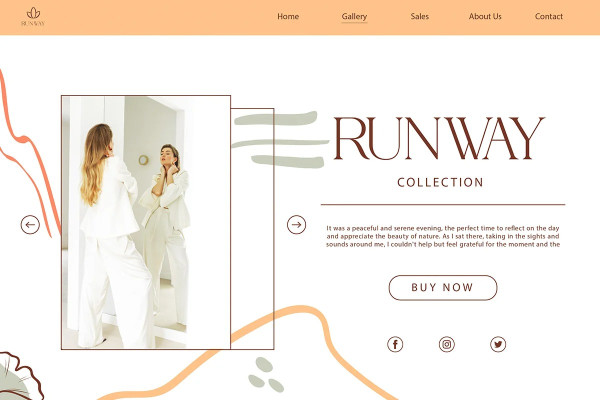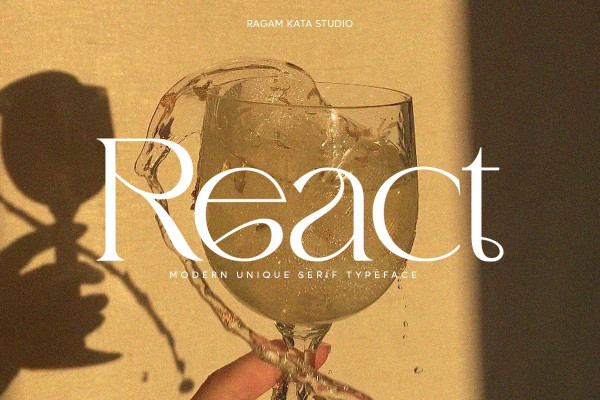
React Font
React Font is a classy, bold upper and lowercase typeface that looks incredible in both large and small settings. Best used as a display for headings and logos, React clean lines and smooth curves give any project an extra touch of class. A serif modern and classic typeface that has own unique style & modern look. This typeface is perfect for an elegant & luxury logo,book or movie title design, fashion brand, magazine, clothes, lettering, quotes, and so much more.